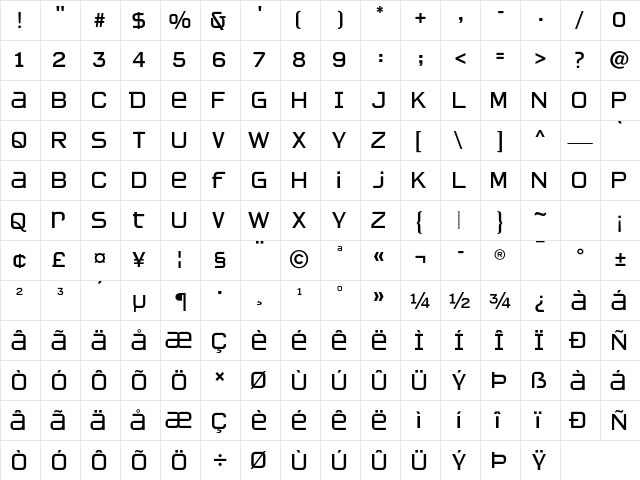
Quartan LT Std Light
Designer: Maria Martina Schmitt
Design Context for Quartan LT Std
Quartan LT Std is a composed and adaptable typeface that performs quietly and consistently across a wide range of design contexts. Its slender proportions lend an understated elegance to any composition.